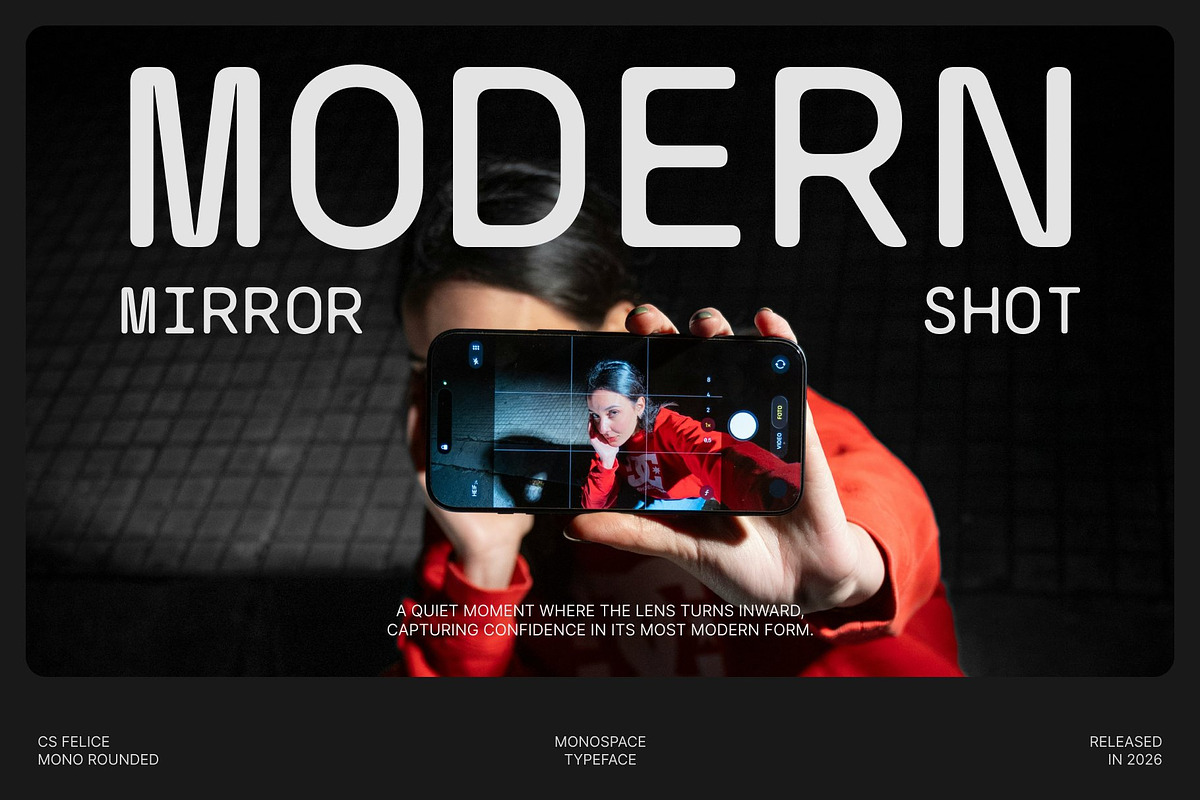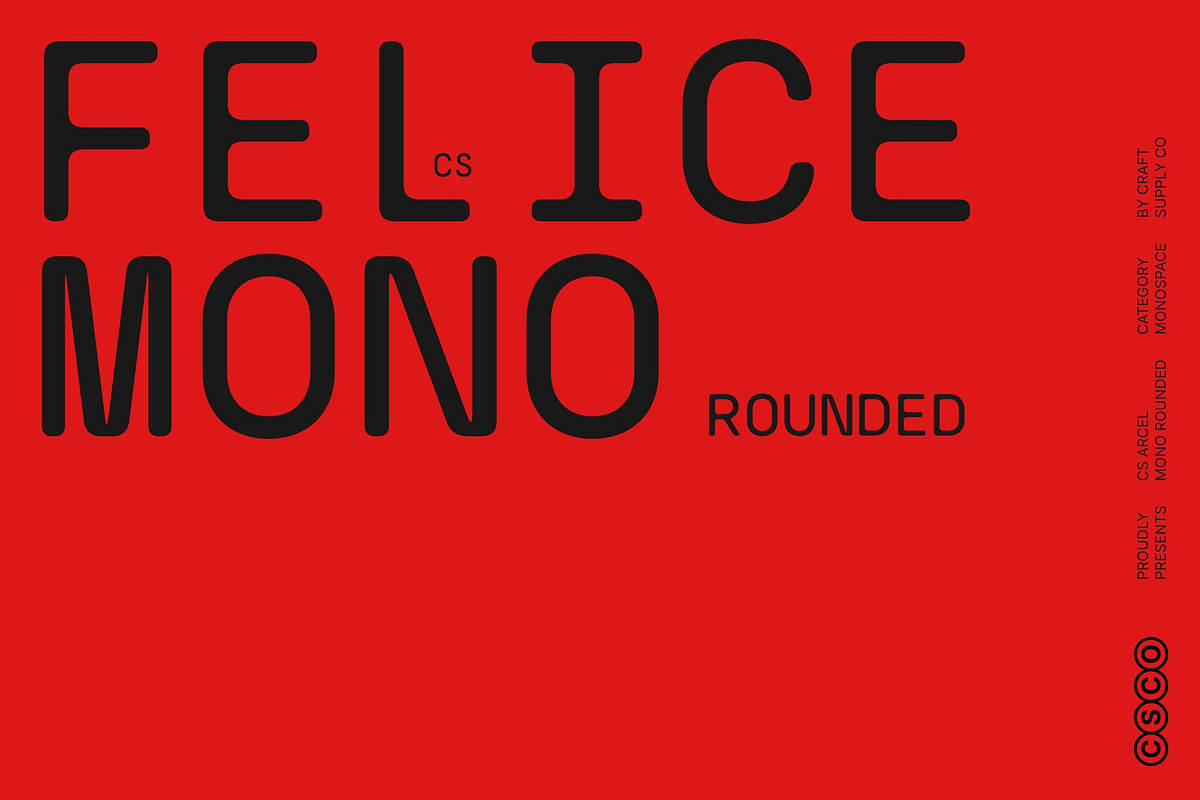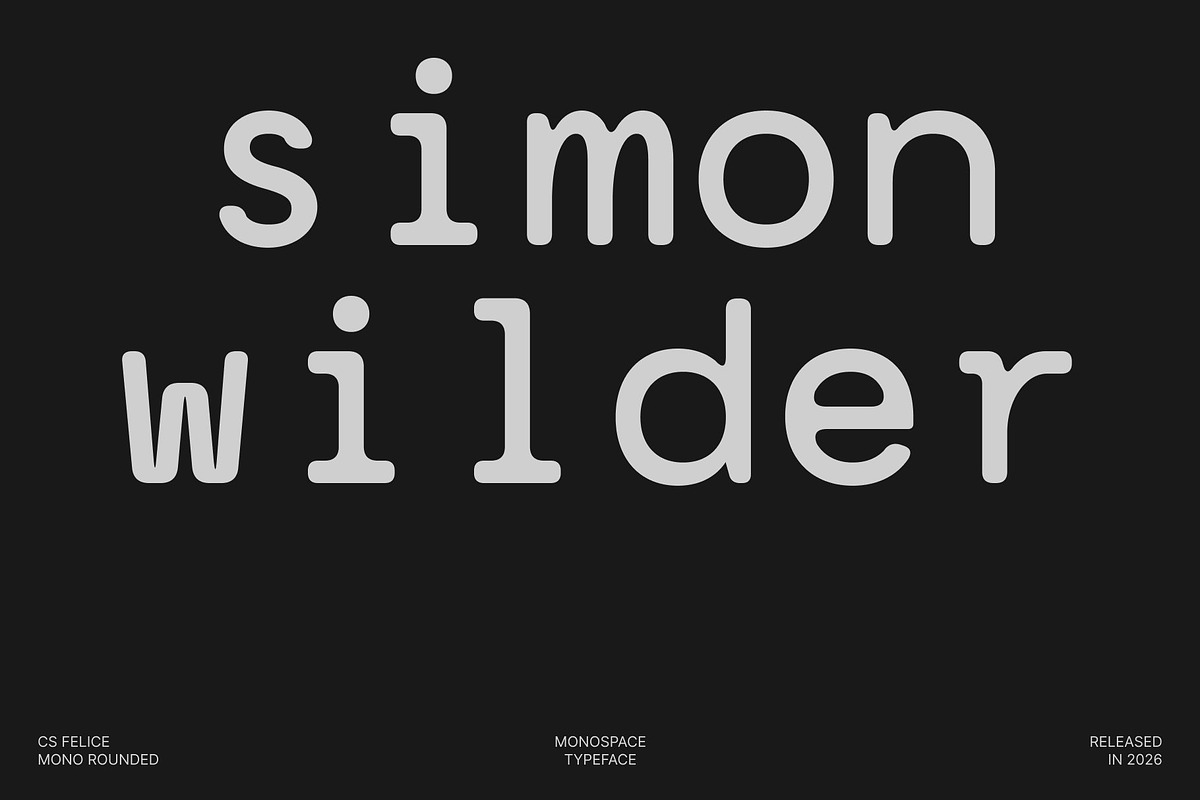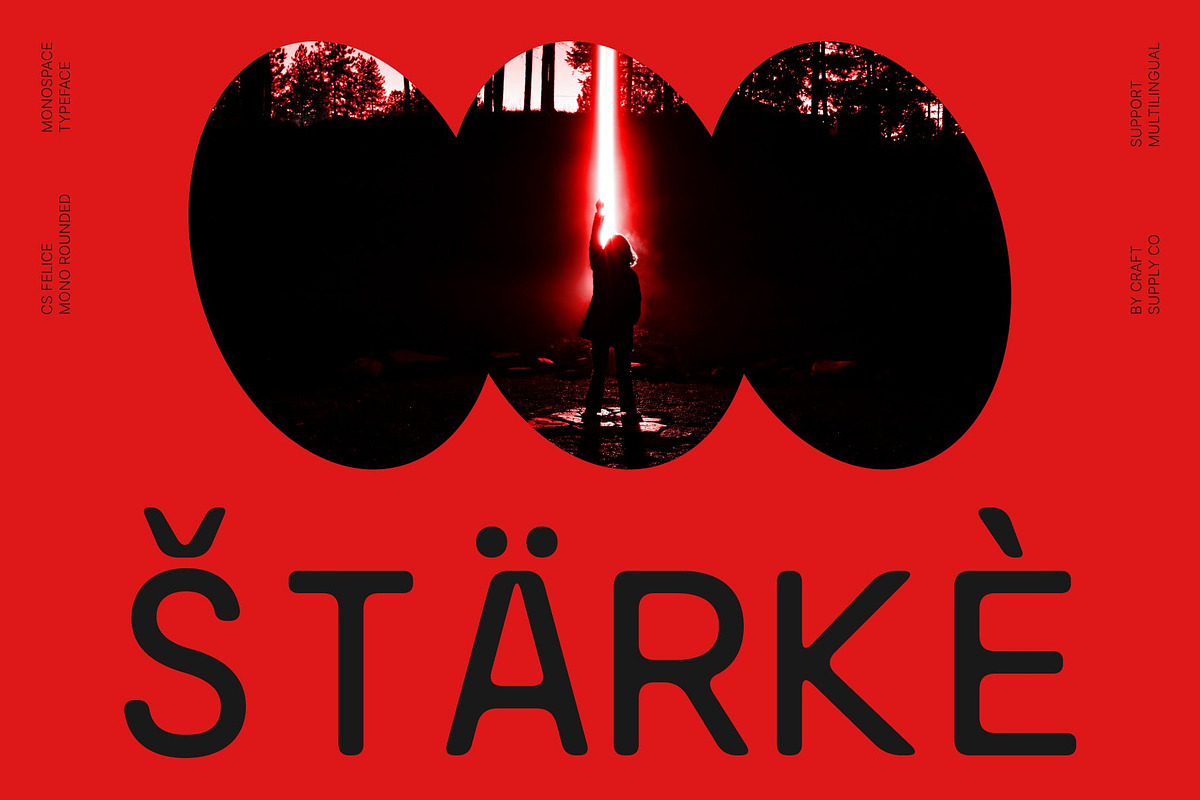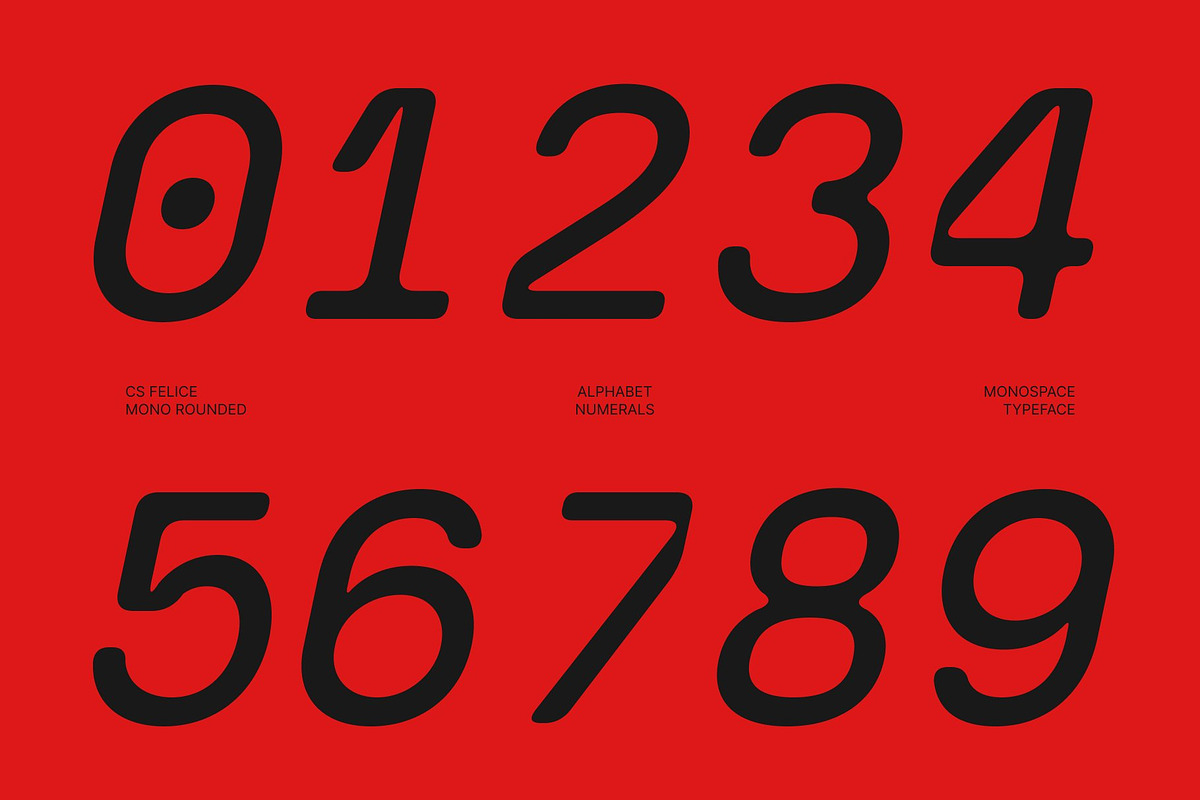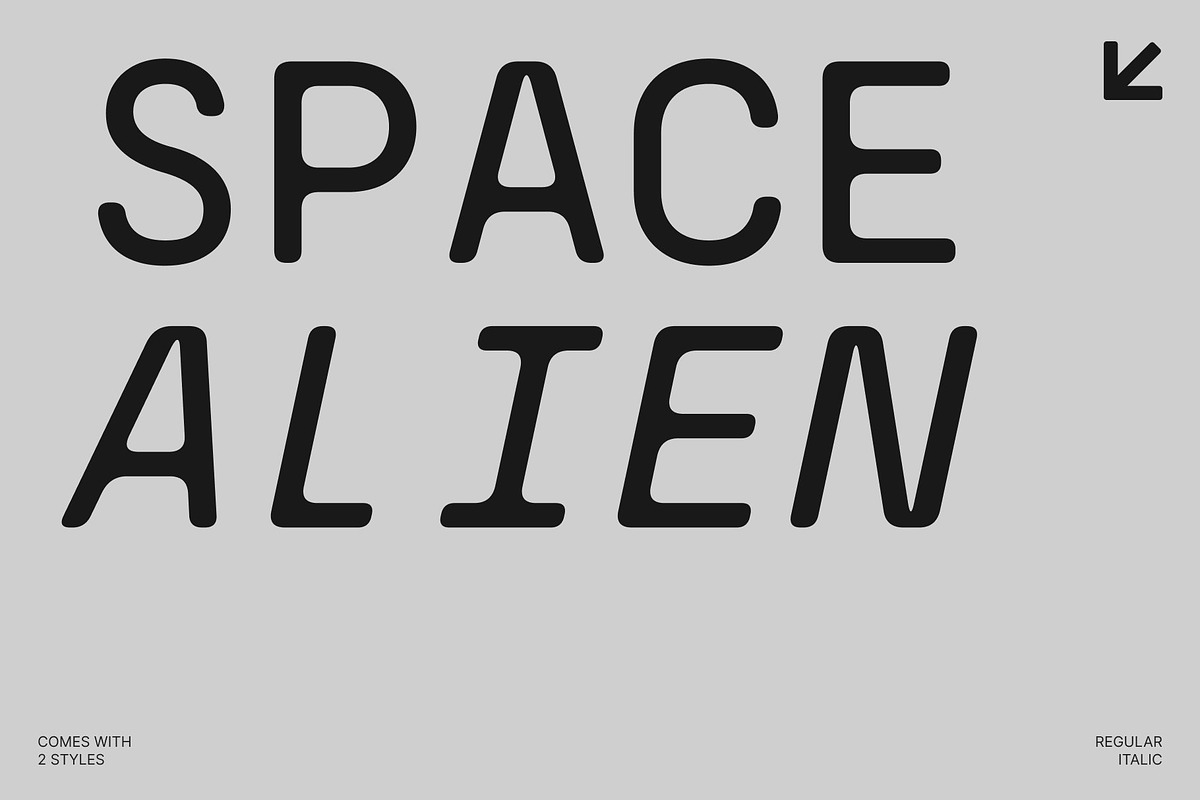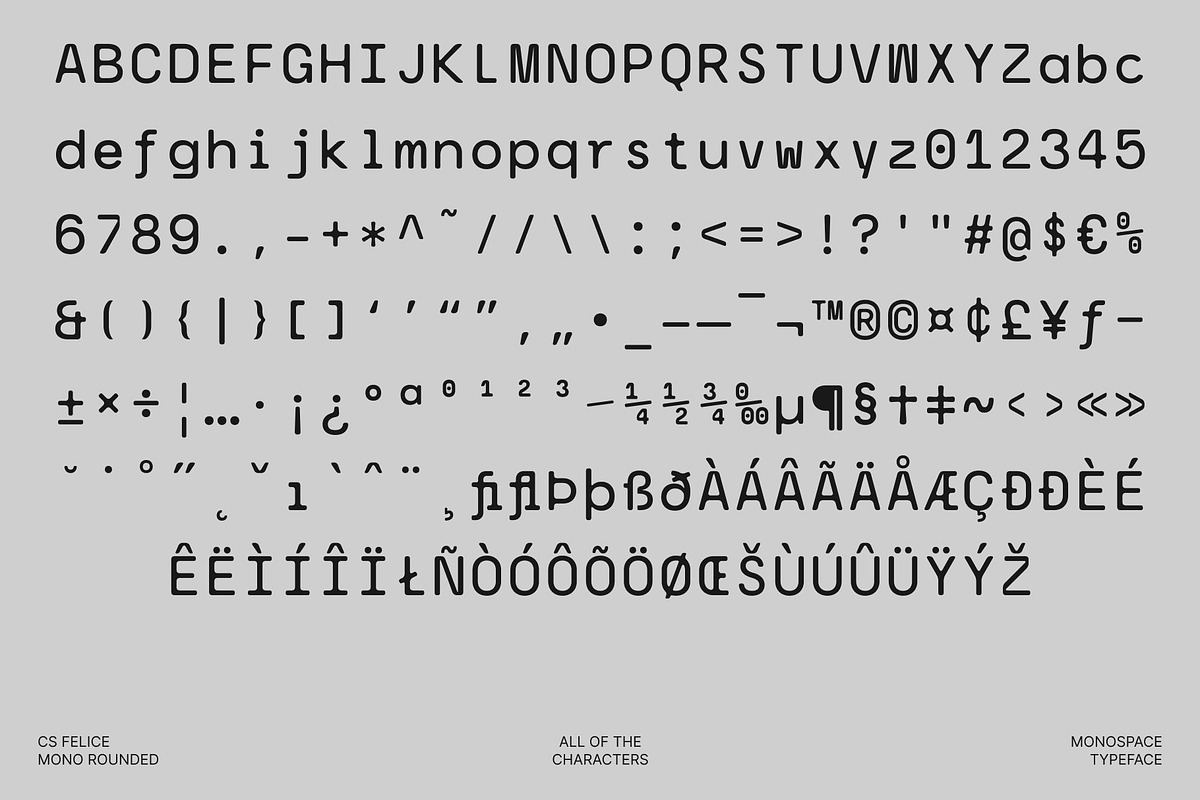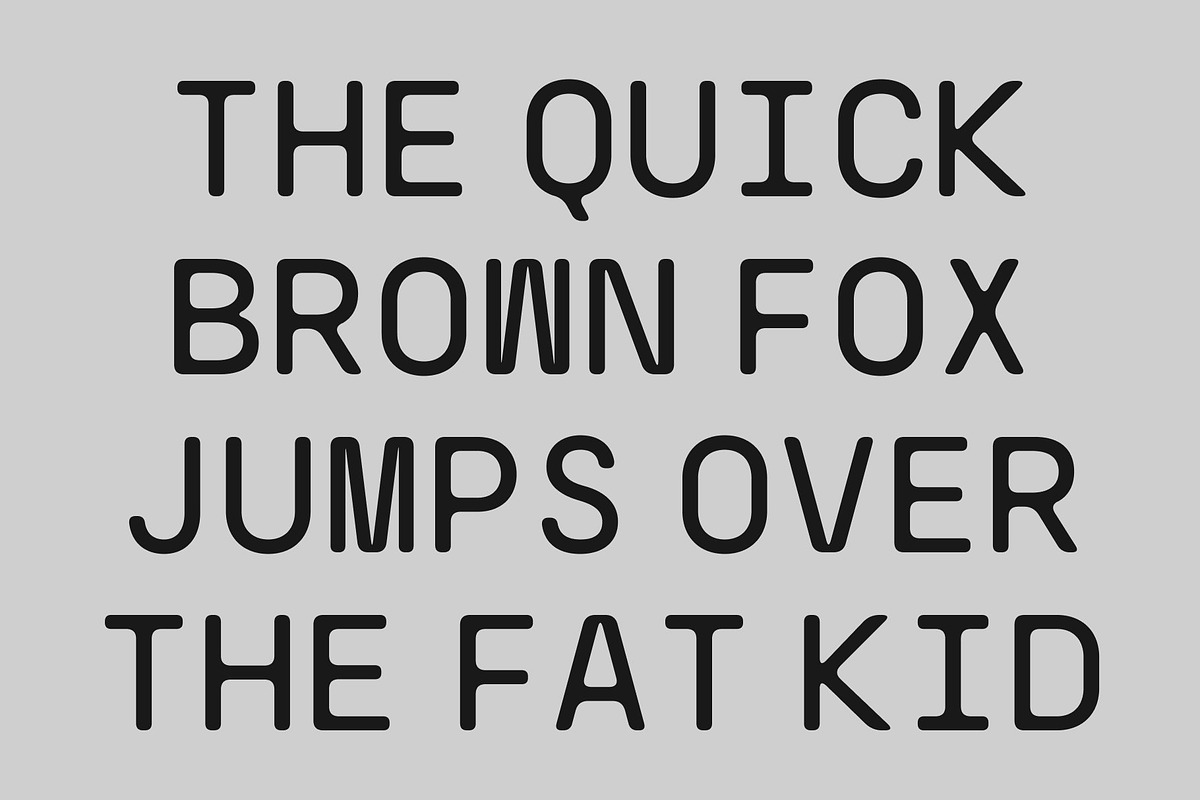
CS Felice Mono Rounded
CS Felice Mono – Precision and Clarity in Every Character
Consistent Spacing for Perfect Alignment This is a monospaced sans serif font built with equal-width characters to ensure consistent spacing and precise alignment. This uniform structure enhances readability and accuracy, making it ideal for coding, technical documentation, tabular data, and structured text layouts where clarity is essential.
Clean Design with a Contemporary Touch Its modern sans serif construction delivers a sharp, minimalist appearance that feels both professional and efficient. Rounded terminals soften the structured framework, adding a clean, approachable, and slightly relaxed character without compromising precision. The result is a typeface that feels technical yet friendly.
Optimized for Coding and Data Presentation Designed for environments where alignment matters most, this font performs beautifully in programming interfaces, technical writing, and data visualization. The monospaced functionality ensures visual consistency, while the smooth curves make extended reading more comfortable.
Versatile and Modern Beyond technical use, this font adapts seamlessly to contemporary design contexts. Its structured yet soft aesthetic makes it suitable for branding, UI design, web layouts, packaging, headlines, and modern communication materials that require both professionalism and warmth.
- CS Felice Mono Rounded Regular
- CS Felice Mono Rounded Italic